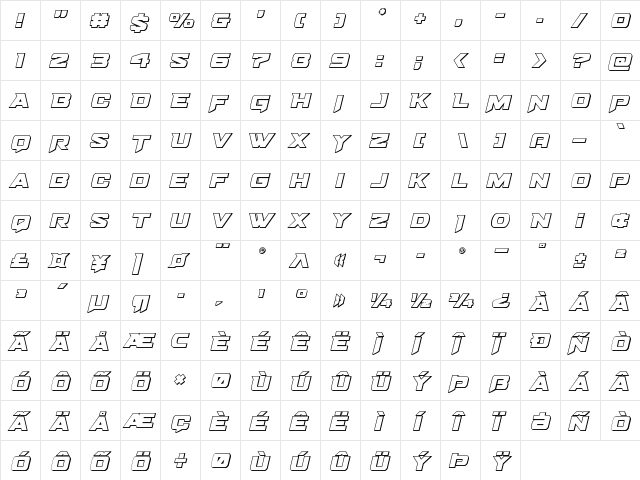
Bomber Escort Outline Italic Regular
Design Context for Bomber Escort Outline Italic Typeface
Bomber Escort Outline Italic brings ornamental detail and strong personality to headlines and identities, where visual impact matters more than quiet functionality. The slanted form adds forward momentum and visual energy.
Font Pairing: Pair with a clean neutral sans-serif for body copy to let Bomber Escort Outline Italic's character lead without overwhelming the composition.
Pro Tip: Treat Bomber Escort Outline Italic as the centrepiece of your typographic hierarchy. One strong heading set in a decorative face can carry an entire layout.